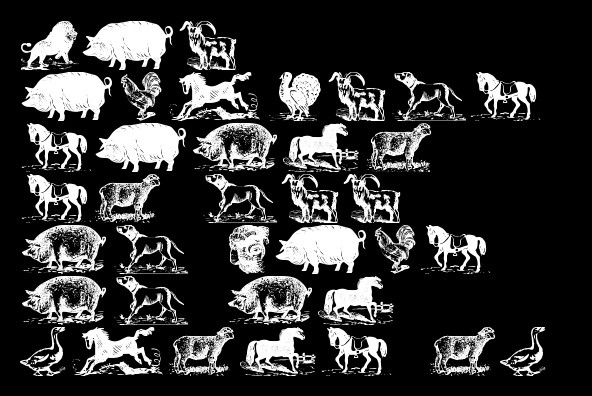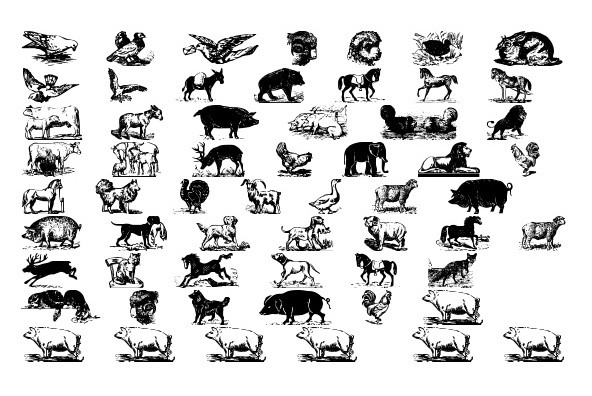
Gans Animals
Foundry: Intellecta Design
A collection of animal drawings in font format. A great set of type dingbats in the genre of farm animals and more.